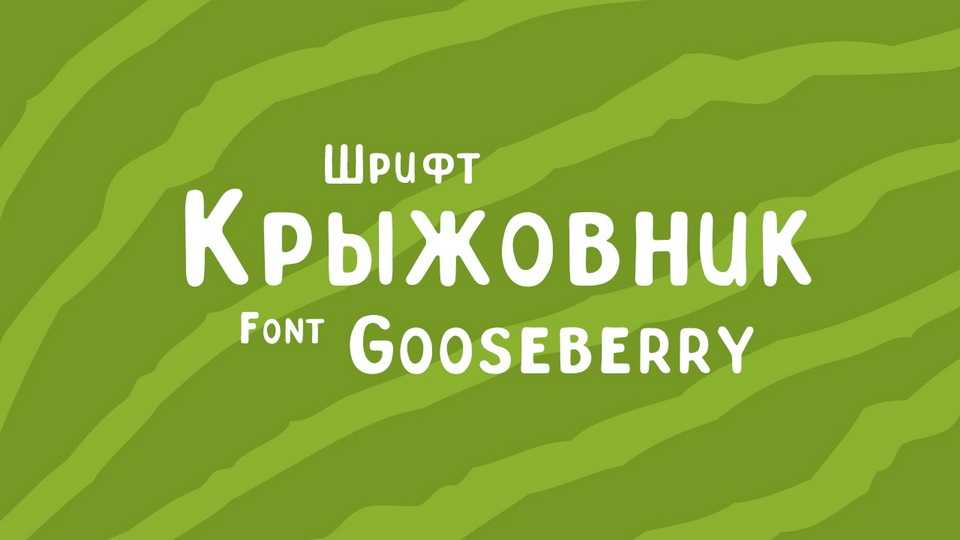
Download Gooseberry font, a super fun and playful hand lettered bold typeface. Gooseberry is perfect for headings, flyer, greeting cards, product packaging, book cover, printed quotes, logotype, apparel design, album covers, etc.
Designer: Ivan Lisichkin